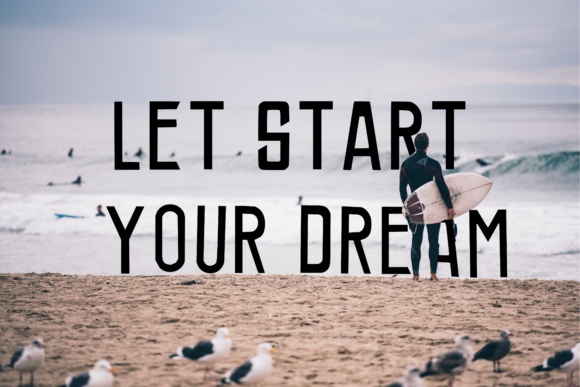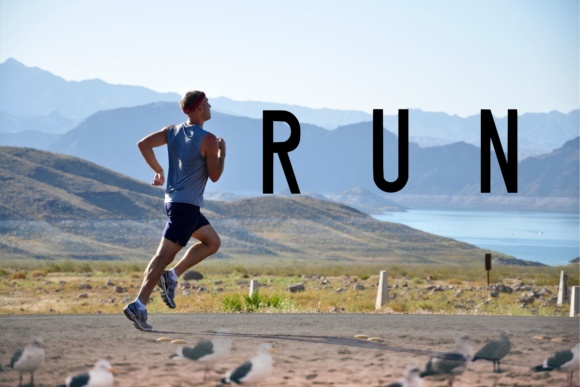
Introduction to Muvcix Font Font
Fonts play a crucial role in design, and the Muvcix Font font is a typeface that brings both character and versatility to any project. Whether you’re working on a branding project, a website, or a print design, the Muvcix Font font offers a unique style that can elevate your work.
Muvcix is a gorgeous and simple sans serif font, perfect for use in a wide range of creative projects.
This font excels as a display or headline to your work, and can add a streamlined and sleek feel in any design .
Key Features of Muvcix Font Font
Why Choose Muvcix Font Font?
The Muvcix Font font is more than just a typeface – it’s a design tool that helps you communicate your message with style and clarity. Its unique character set and versatile design make it suitable for a wide range of applications, from elegant invitations to bold headlines.
With its carefully crafted letterforms and balanced proportions, the Muvcix Font font ensures readability and visual appeal across all mediums.
What makes Muvcix Font font special?
The Muvcix Font font stands out with its unique design, exceptional readability, and versatility across various design applications.